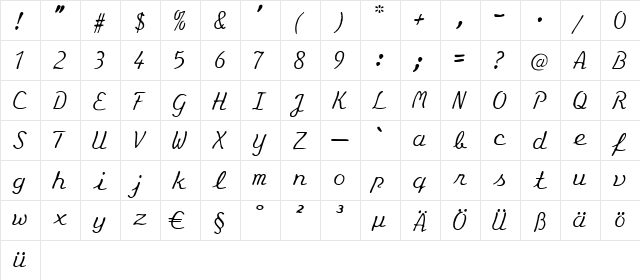
Eminenz Regular
Design Context for Eminenz Typeface
Eminenz takes a measured approach to typography — its balanced proportions and neutral character make it a reliable workhorse for both digital and print work.